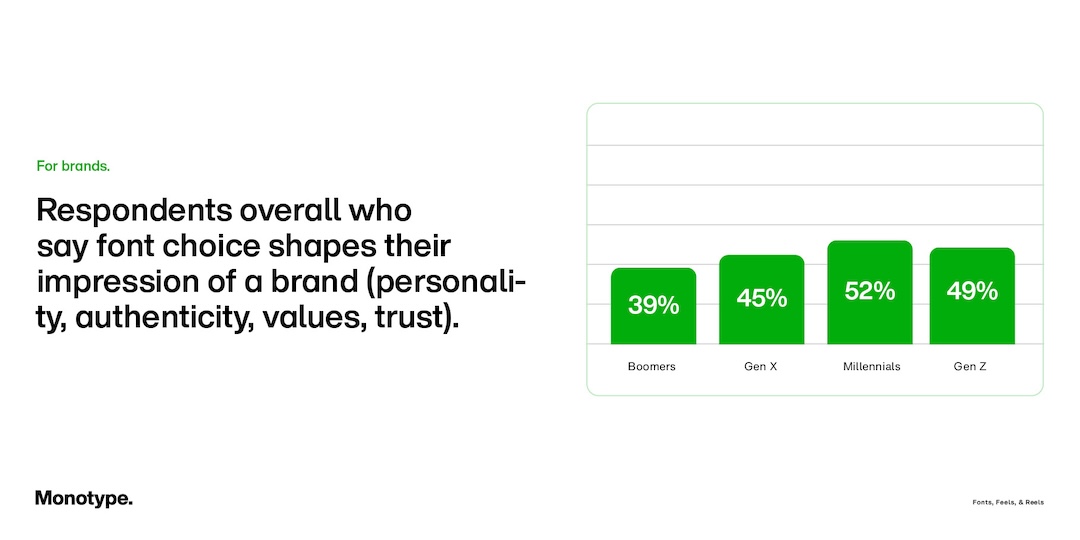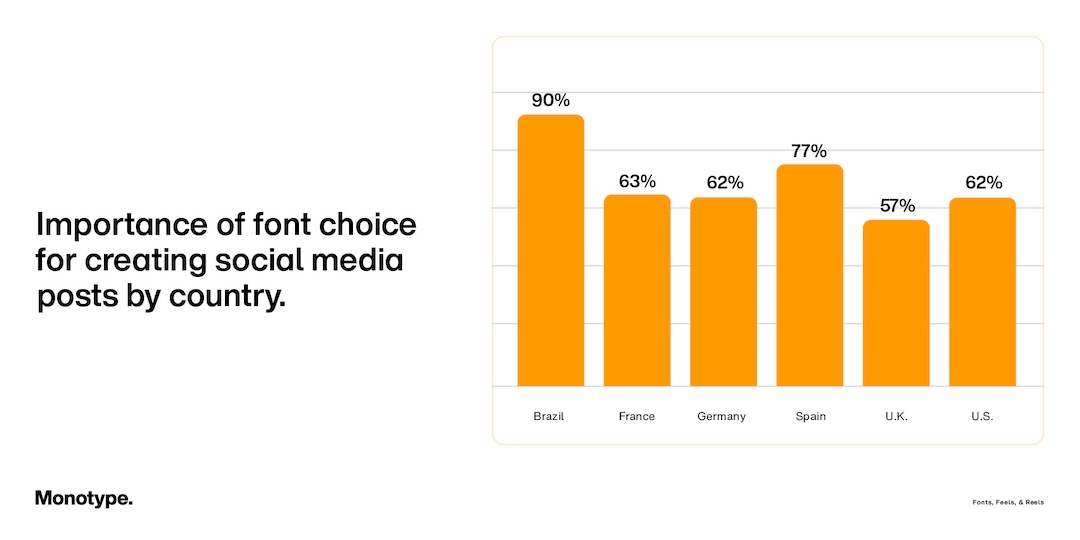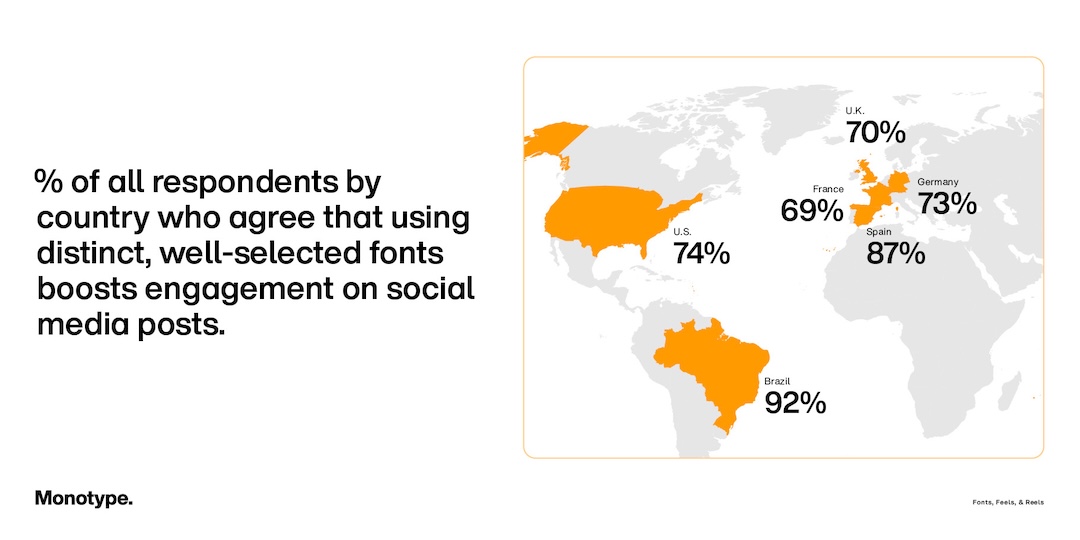
Monotype Tracks How Each Generation Speaks Through Fonts—From Boomers To Zoomers
From mood-setting serifs to the emoji energy of bubble type, a new Monotype study reaffirms that typography dots the i’s of self-expression.
For its new Fonts, Feels, & Reels report, the type foundry surveyed more than 12,000 social media users across six countries to find out how Gen Z, Millennials, Gen X, and Boomers approach fonts in a world where every post counts as a first impression. Here are the takeaways.
1. Fonts aren’t background noise—they’re your digital voice
Fonts now carry the same weight handwriting once did. According to Monotype’s findings, 69% of people across generations said typefaces are important when crafting social posts, while Gen Z and Millennials were the most font-aware, viewing type choices as extensions of personality and credibility. In Brazil, that sentiment is especially strong—over 88% of respondents there said fonts help them get their message across clearly.
2. Typefaces are emotional translators
Think of fonts as the clothes your words wear. 65% of Gen Z and 67% of Millennials said their font choices directly shape their tone and online presence. Across all age groups, 60% said typography plays a major role in expressing personality, while 65% said it helps them say exactly what they mean. For younger users, fonts aren’t just decorative but emotional shorthand, setting the mood before a single word is read.
3. Good fonts = good engagement
78% of respondents agreed that distinct, well-matched fonts improve likes, shares, and comments. Among Gen Z, that jumps to 87%. The takeaway? Fonts influence how audiences react long before they decide to hit like. As Monotype’s senior creative director Graham Sturt (Gen X) put it, “A great font choice turns content into a brand moment,” likening it to “strategy” rather than mere style.
4. The font struggle is real
If you’ve ever grumbled about Instagram’s limited type options, you’re not alone. Over half of Gen Z and Millennials said they’re frustrated by the lack of fonts on social media platforms. In fact, 76% of Gen Z and 69% of Millennials often design their content off-platform using tools like Canva, Figma, or Adobe Express for more creative control. That extra step, often adding minutes to their posting process, shows how much younger creators care about getting the “look” right.
5. First impressions start with type
From brands to creators, typography has become a visual handshake. Around 70% of Gen Z and 66% of Millennials said a font choice shapes their impression of someone’s post, while over half agreed it affects how they perceive a brand’s authenticity and trustworthiness.
Across Generations
Boomers are “impulsive sharers.”
Boomers post frequently but treat fonts casually, focusing more on message than aesthetic.
Gen X are “the bridge generation.”
While Gen X users are less frustrated by font limits, they remain conscious of type’s impact on credibility.
Millennials are “expressive experimenters.”
Millennials see type as a core part of identity, blending creativity with nostalgia.
And Gen Z users are “creators at heart.”
Fonts are social currency to these born creators, who appear to judge others’ type choices as much as their own.
Across Countries
Brazil: The typography frontrunner, with 88% valuing font choice for clarity and 92% linking fonts to engagement.